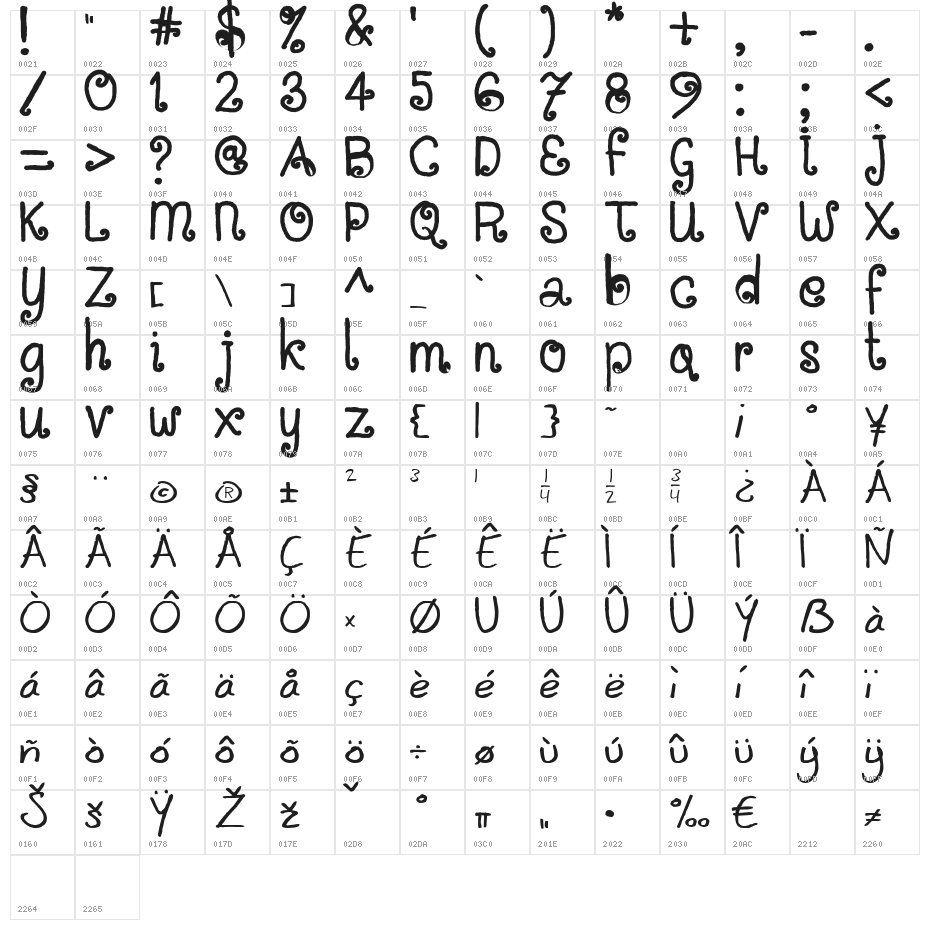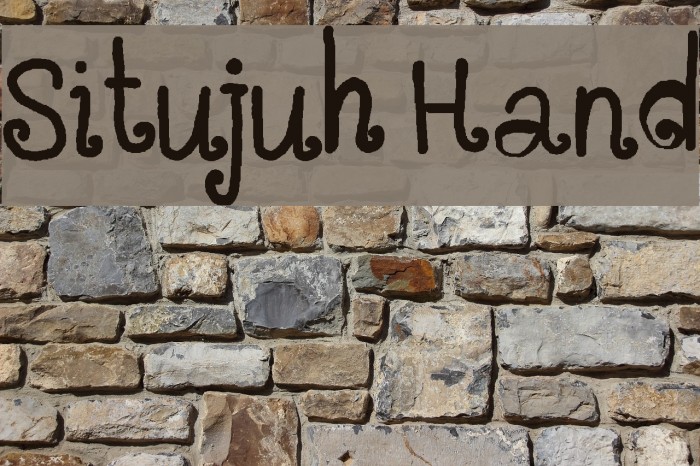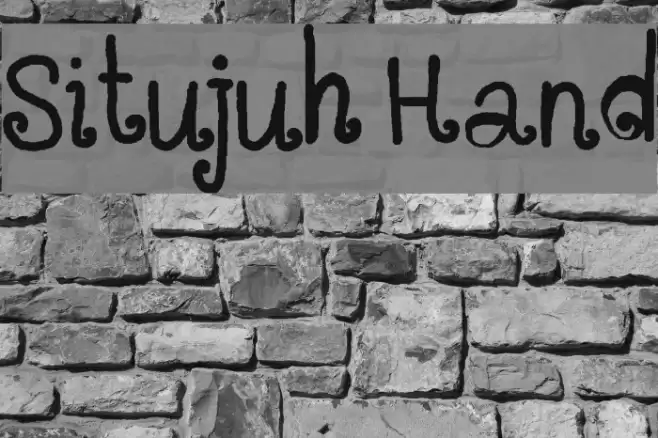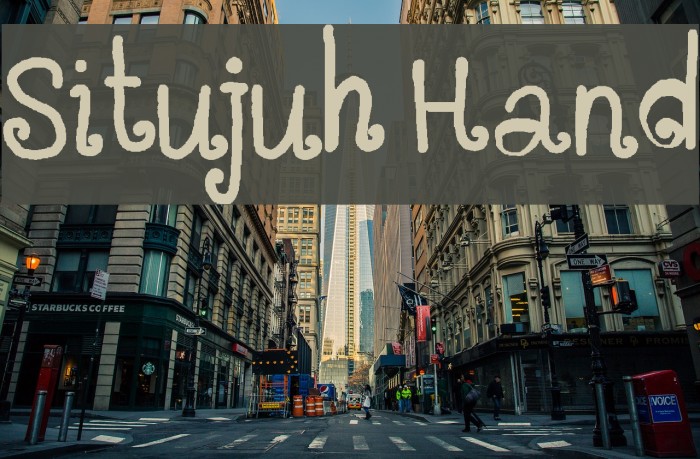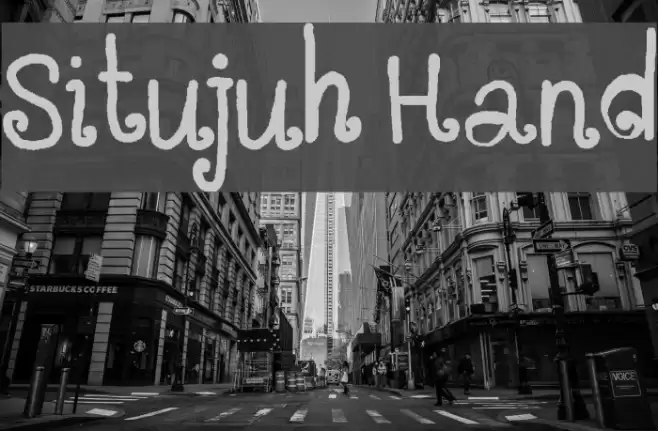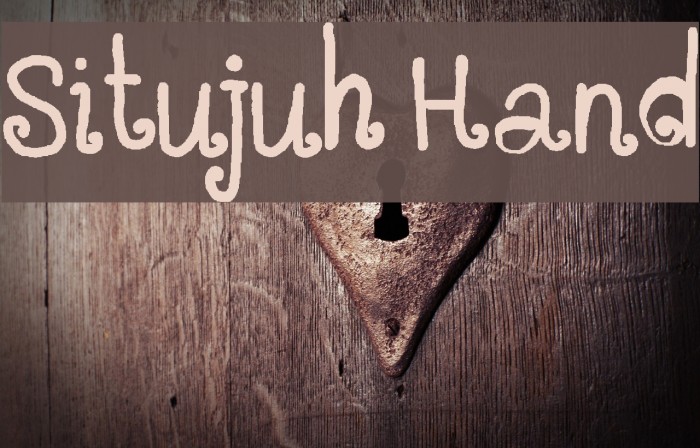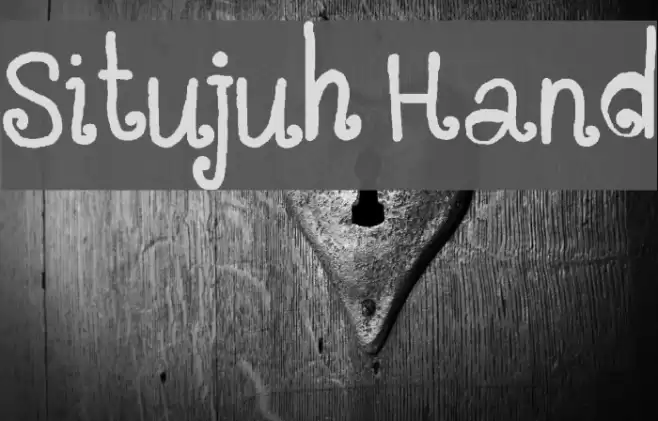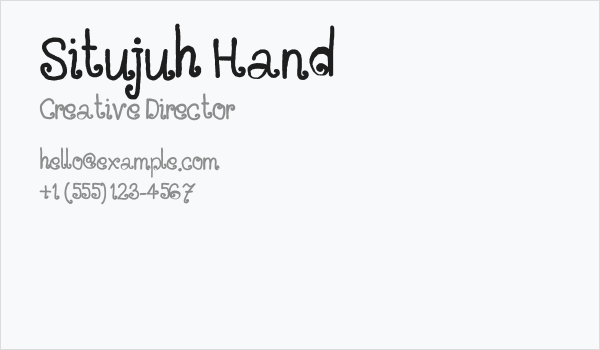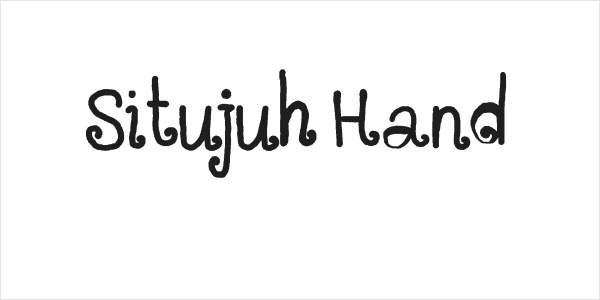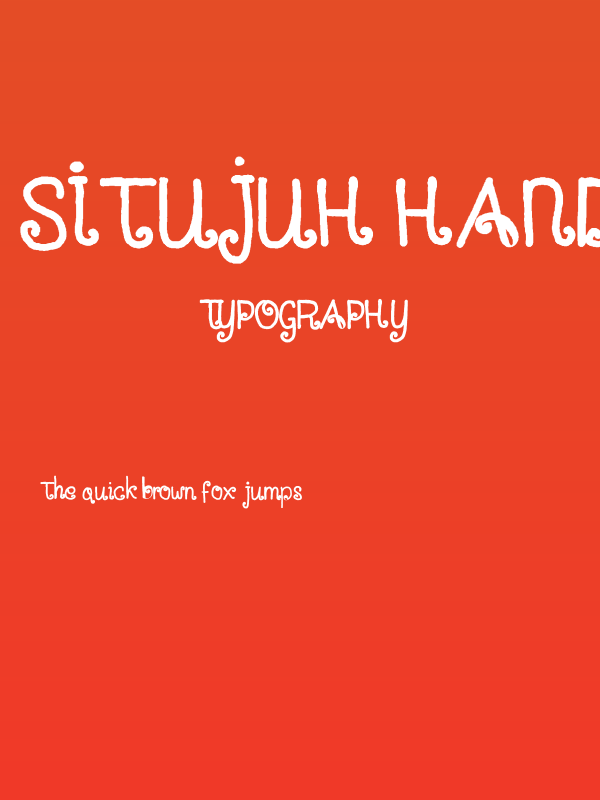
Situjuh Hand Font
Situjuh Hand Description
This font features a playful and whimsical design, characterized by its curly and looping strokes. Each letter has a unique, hand-drawn quality that gives it a lively and informal appearance. The uppercase and lowercase letters maintain a consistent style, with rounded edges and decorative swirls that add a touch of elegance. Numbers and special characters are equally expressive, with some incorporating spiral elements that enhance the font's artistic flair. The overall look is reminiscent of a handcrafted script, making it ideal for projects that require a personal and creative touch.